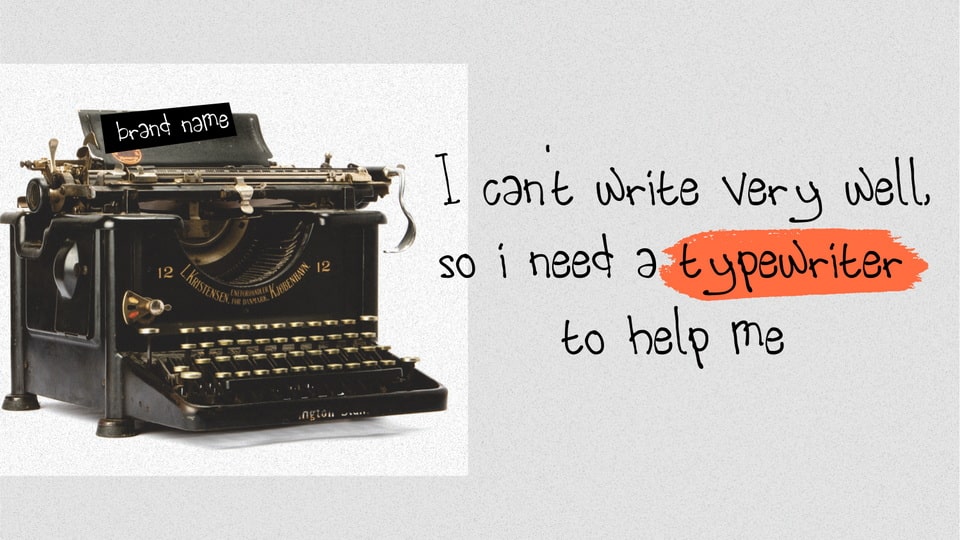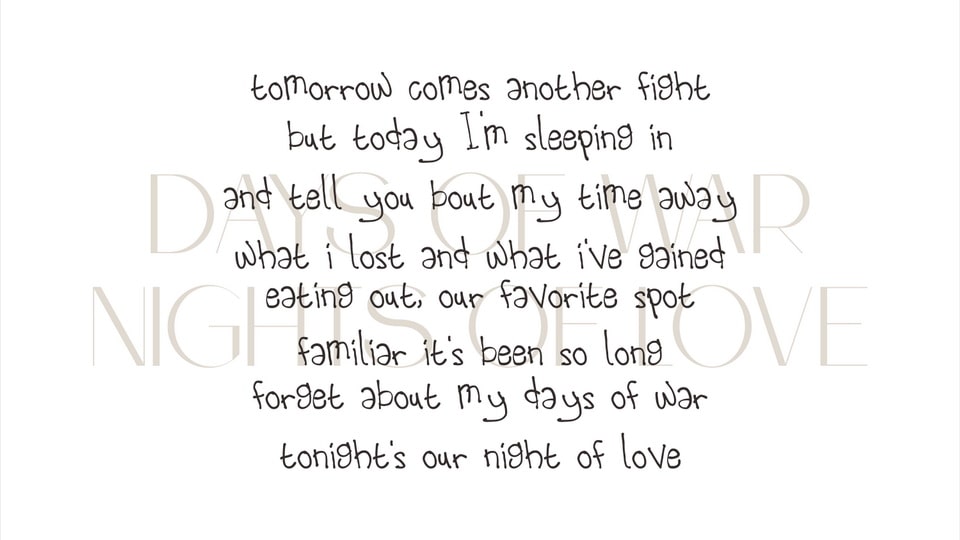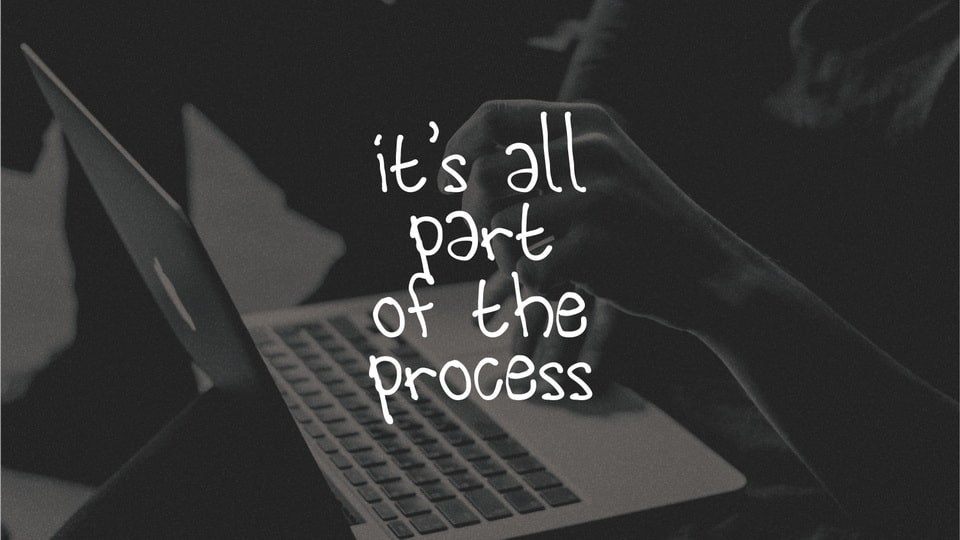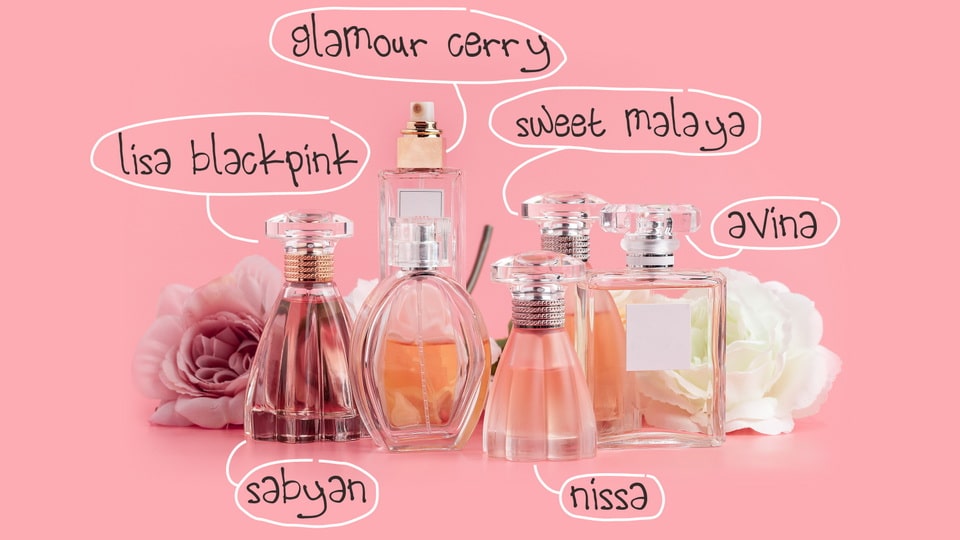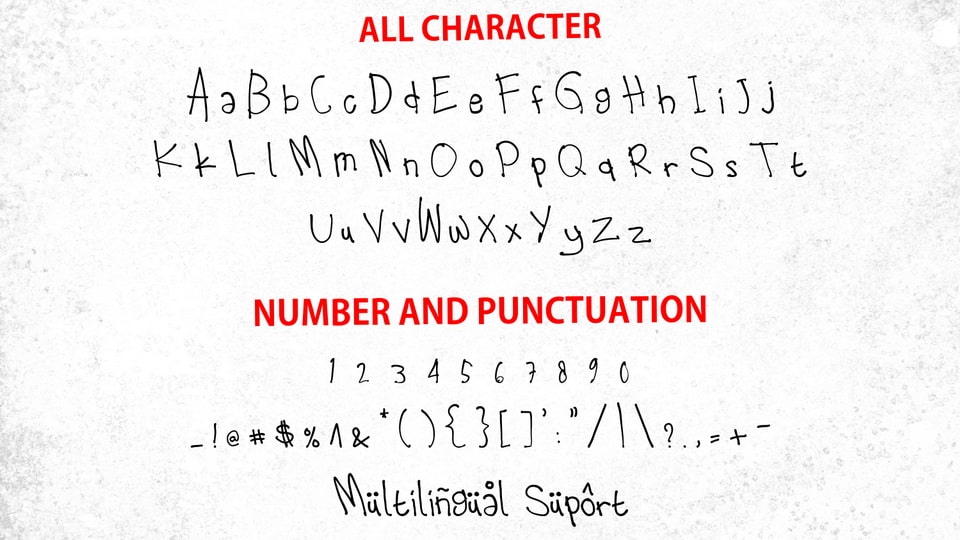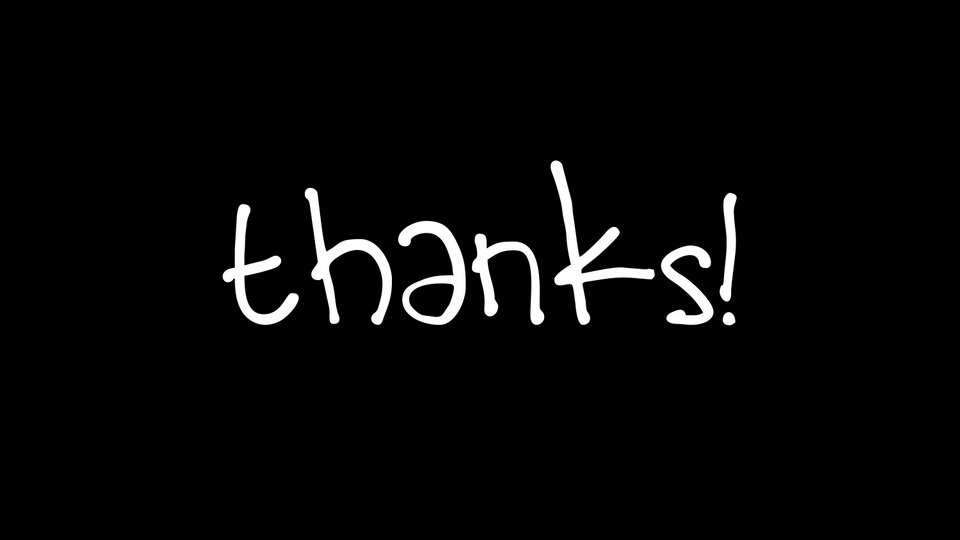
Can’t Write is a handwritten font that looks raw and real, as if you actually wrote the words. This font is perfect for digital planners and digital notebooks! It is sure to make your creations look authentic and handmade.